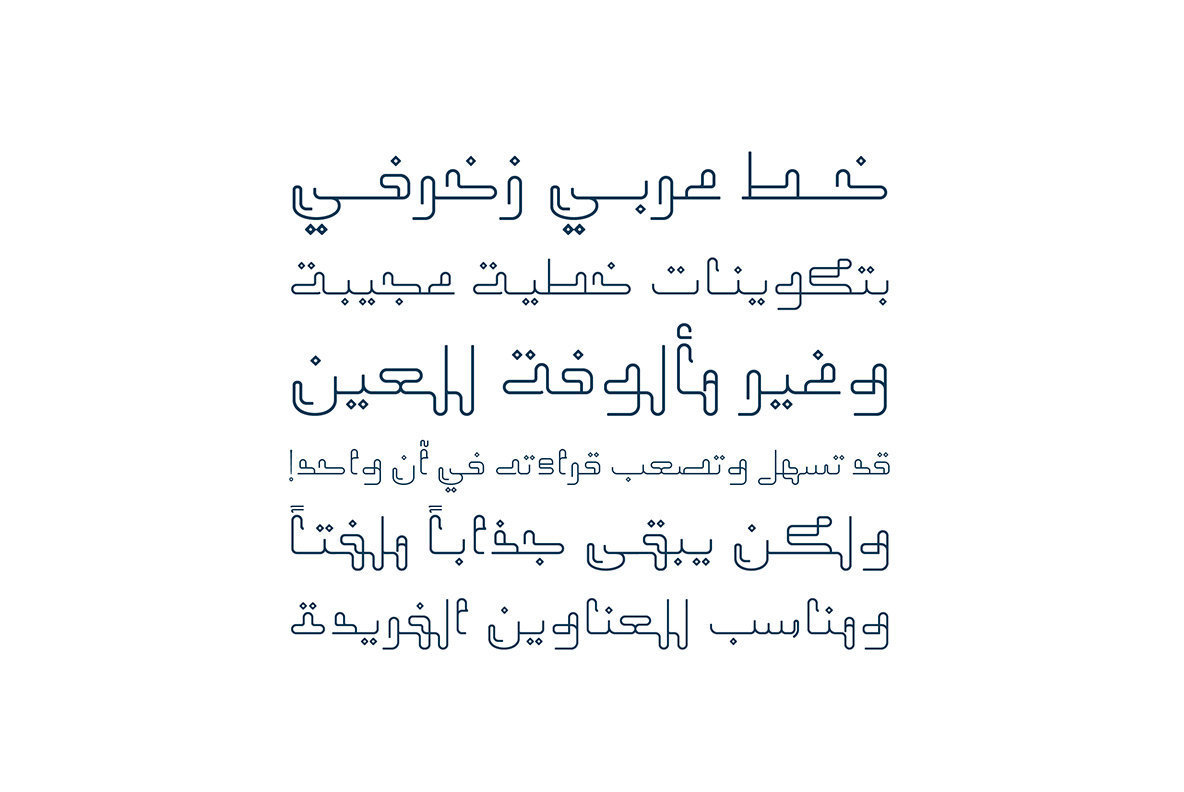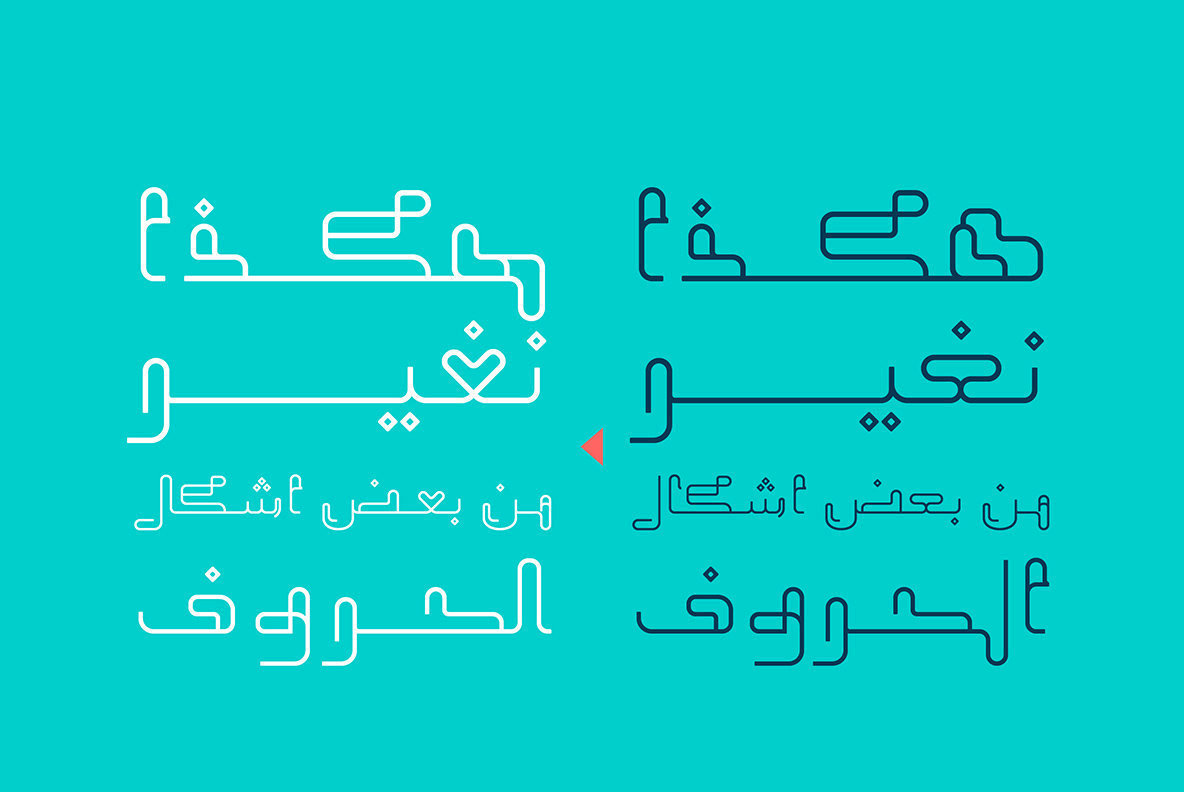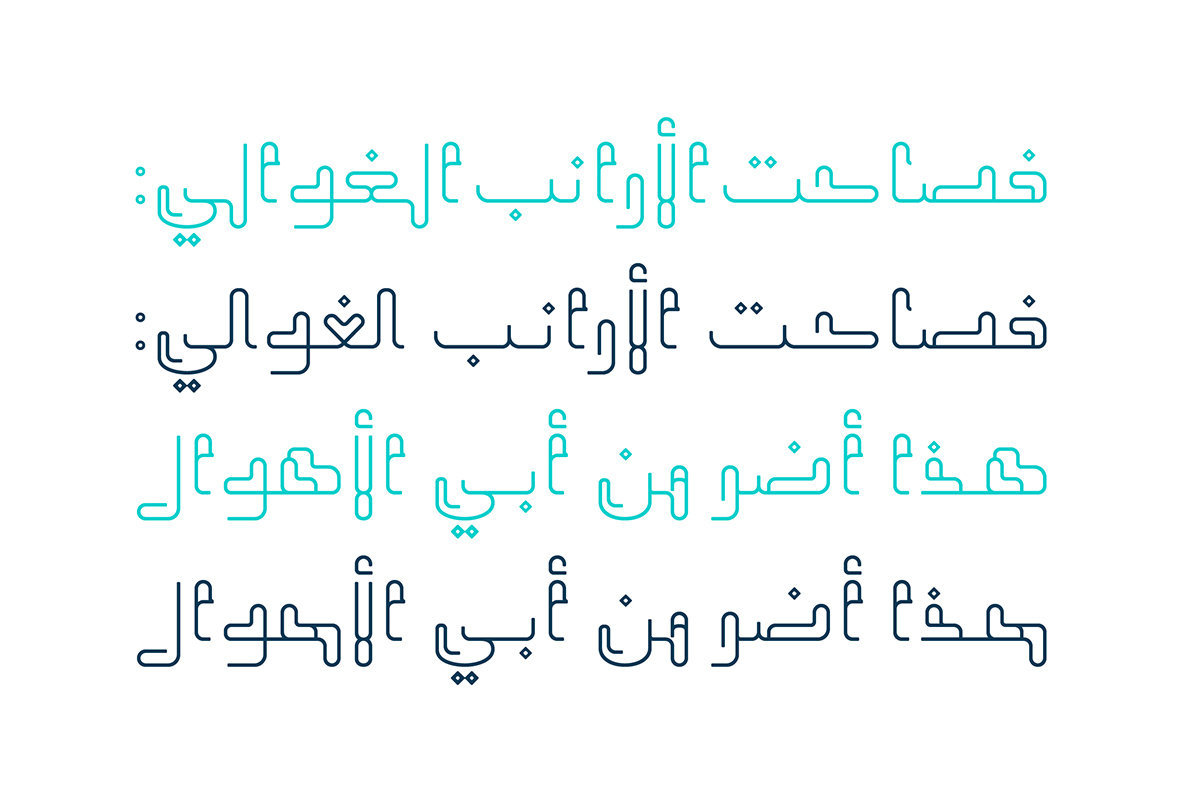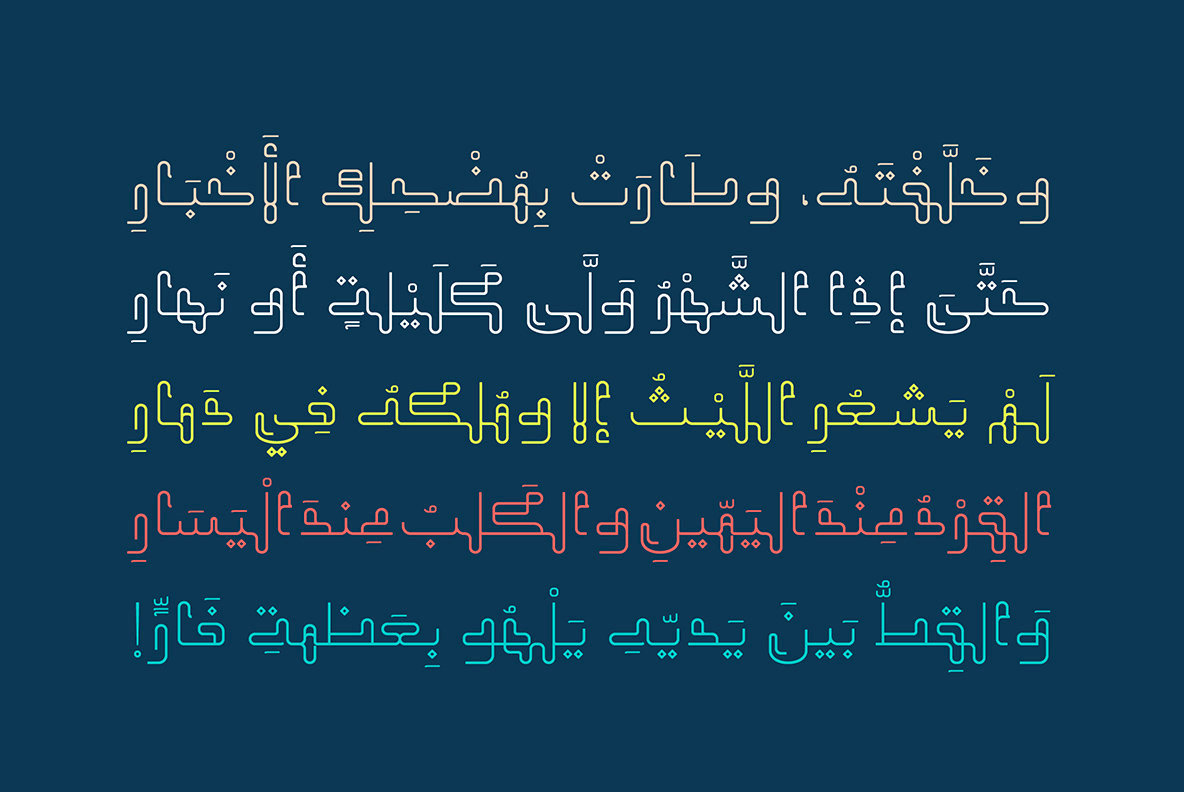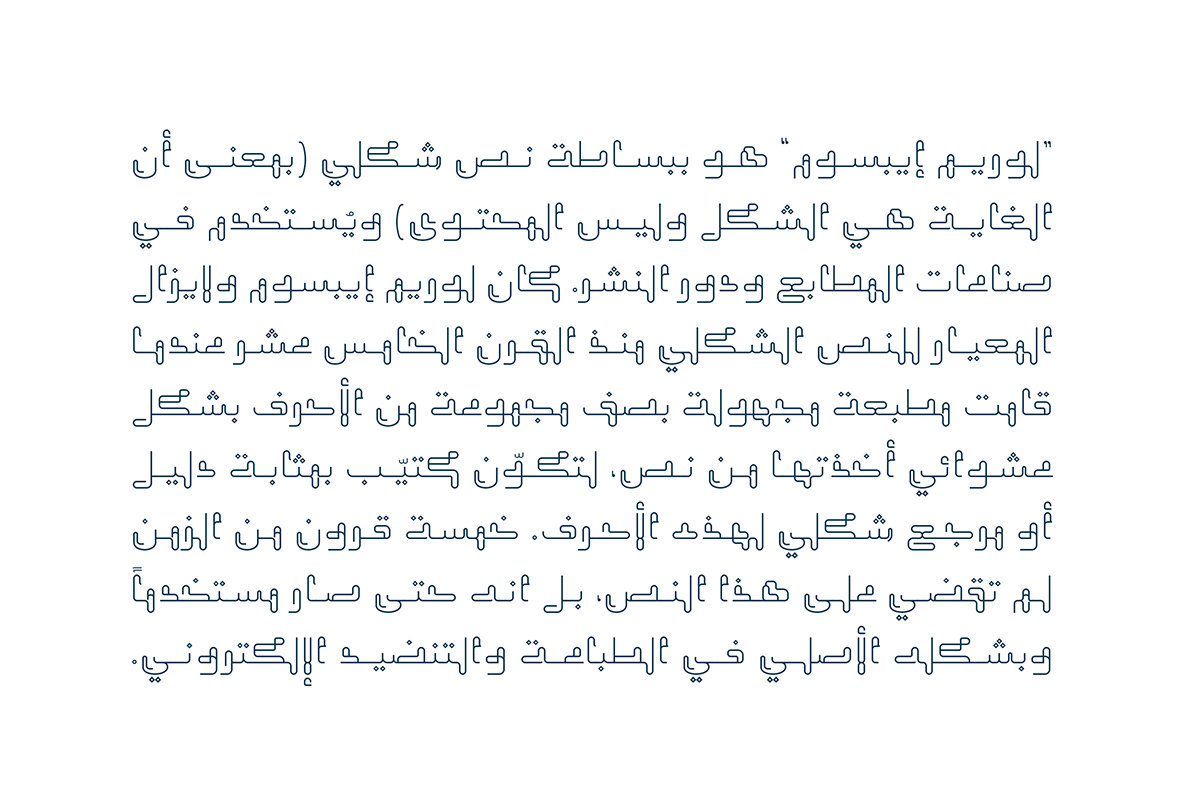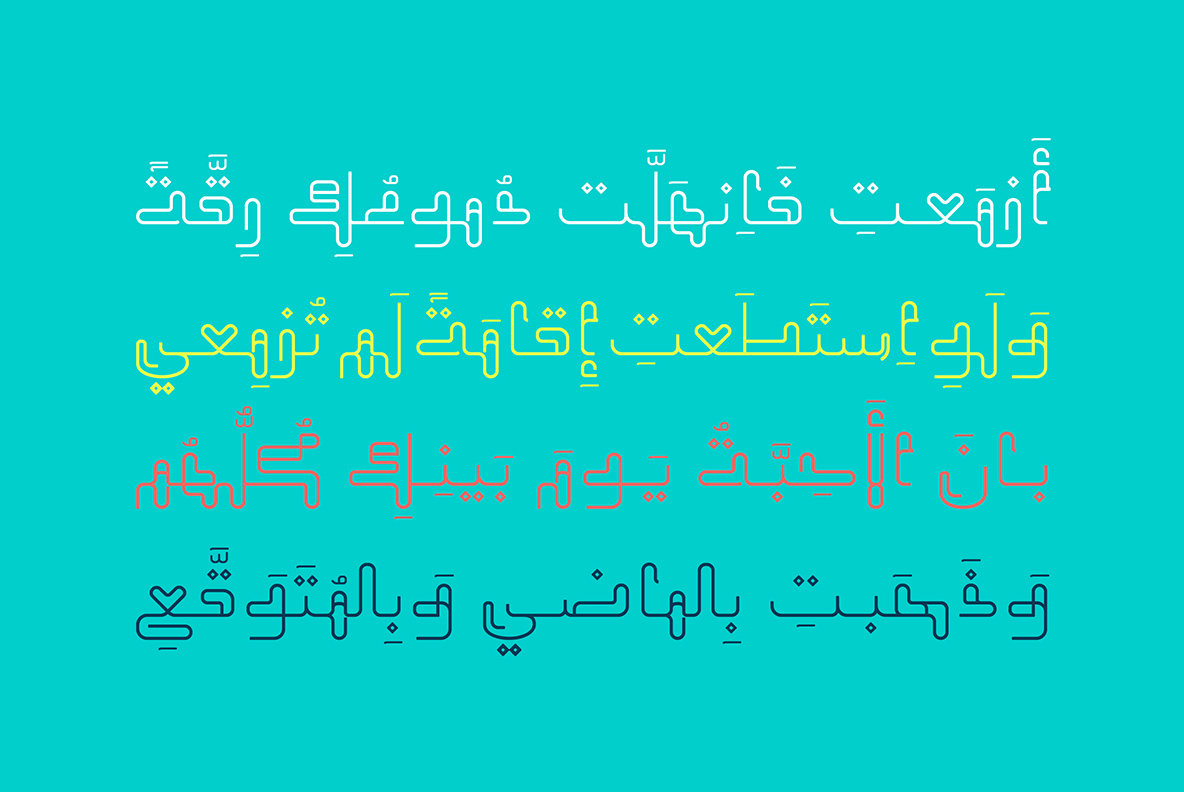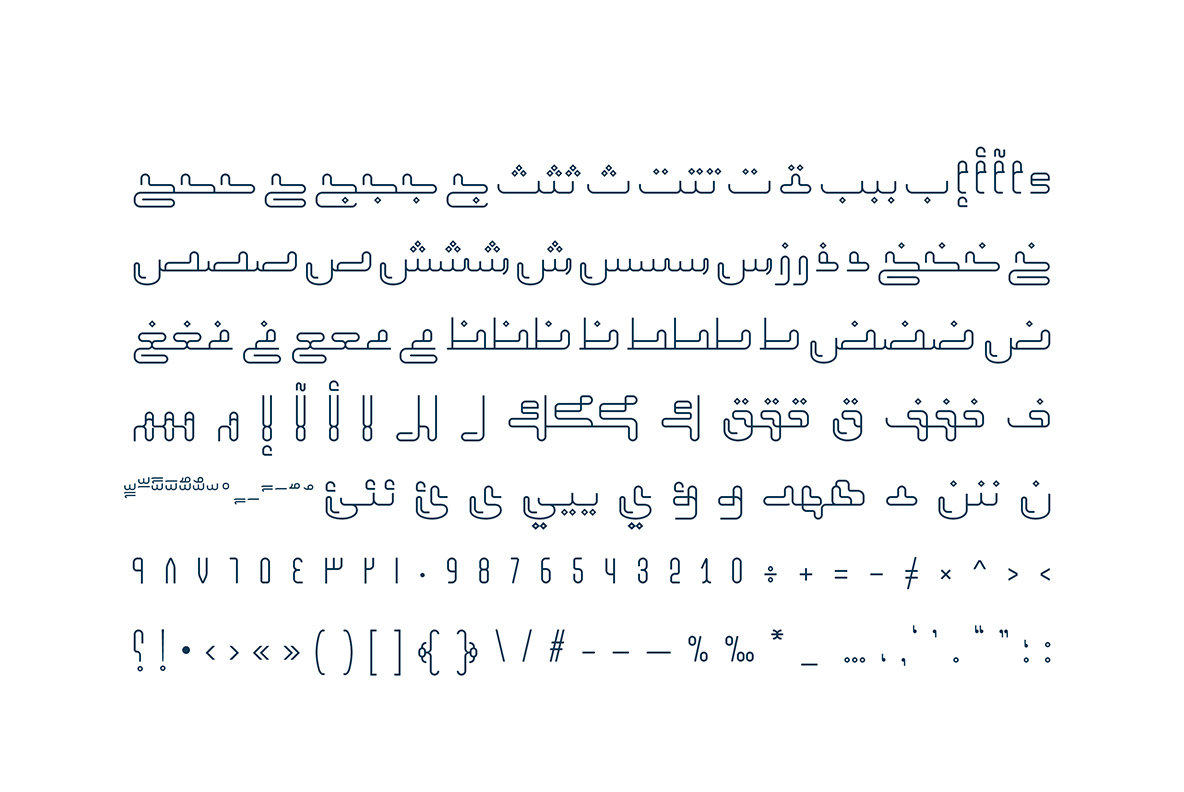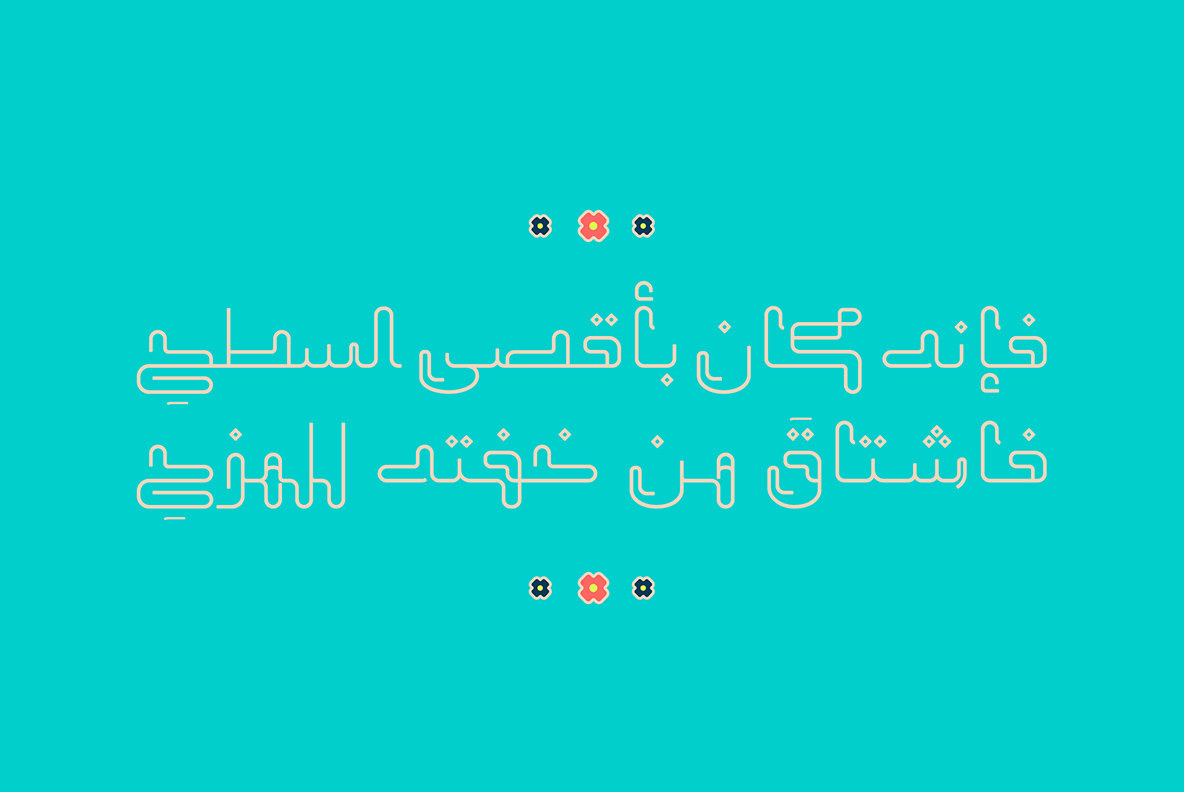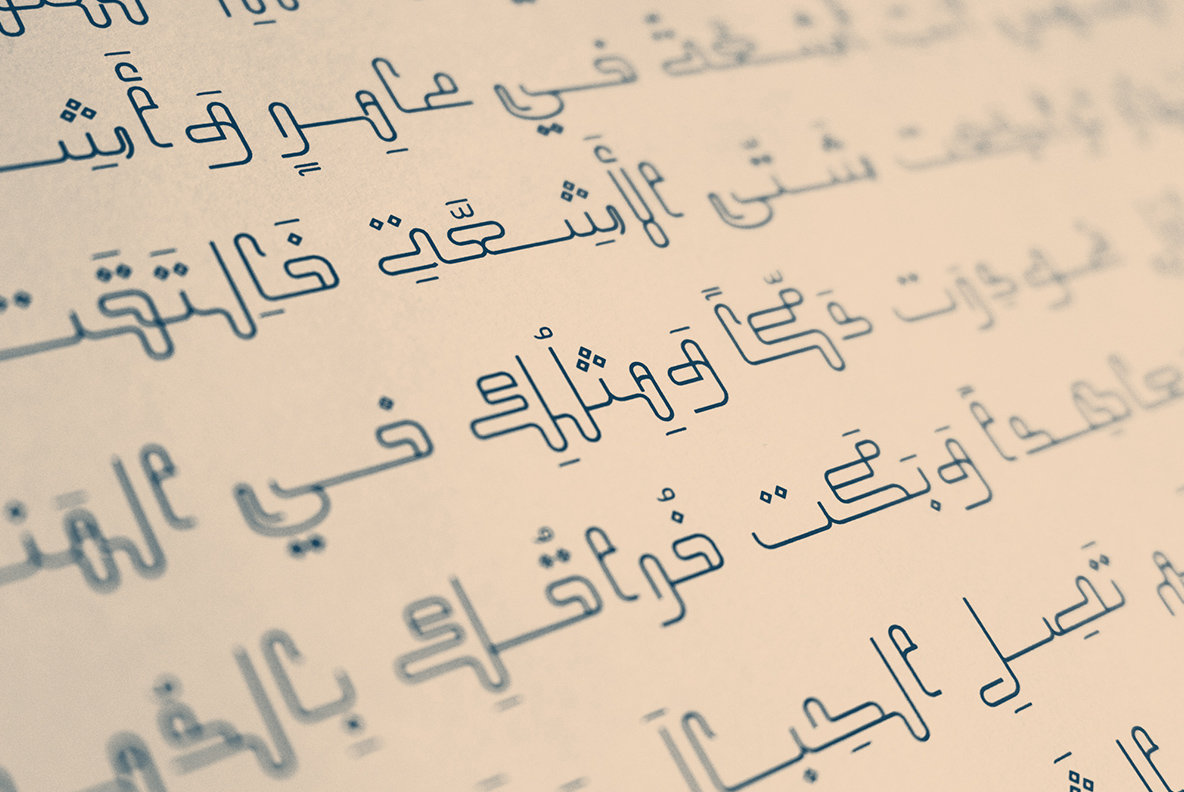
Mozarkash
Mozarkash is the Arabic word for Emblazoned. Mozarkash is an Arabic display font with an extraordinary decorative look. It suits various range of applications including print, embroidery, web and advertising.